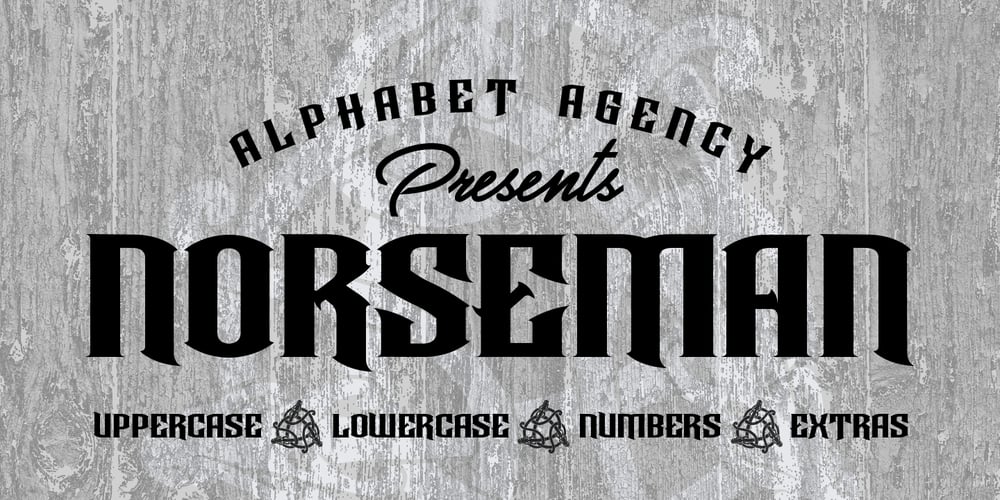
Norseman Font Family was designed by Swinn Jonathan and published by Alphabet Agency. Norseman contains 1 styles and family package options. Forged to be as imposing as a Norse horde ready to stampede into battle, Works great in all caps which it was initially designed to. I designed the lowercase characters to match really well with each other and the uppercase, so it works well in title case. Plus it has a great set of looking numbers and loads of extras.